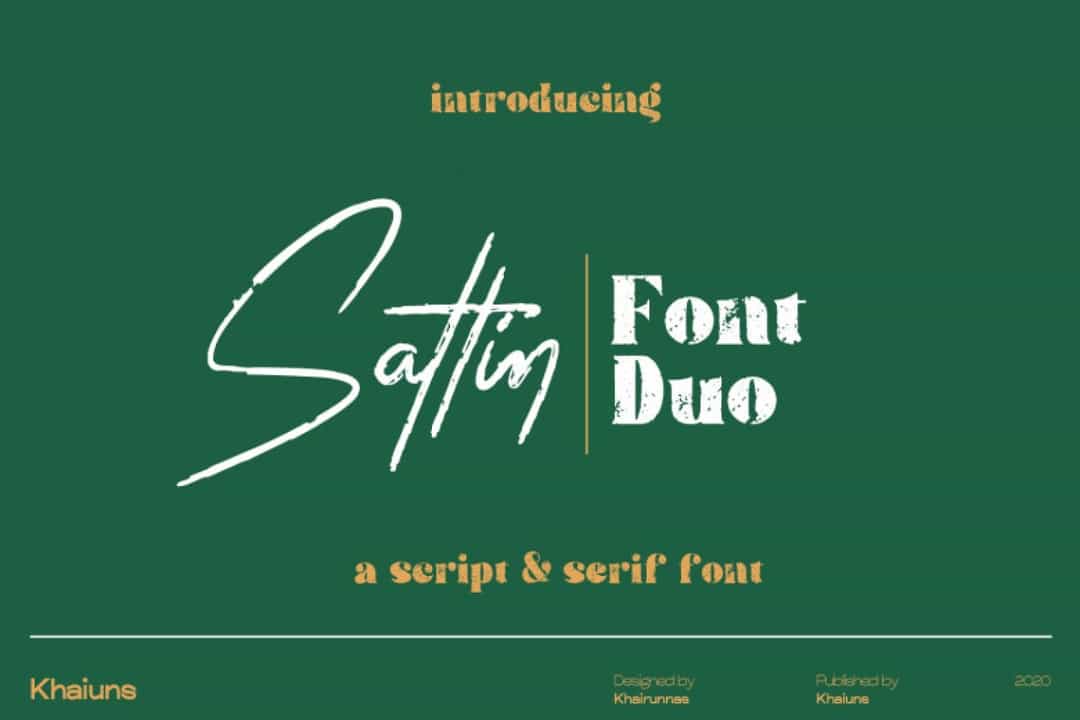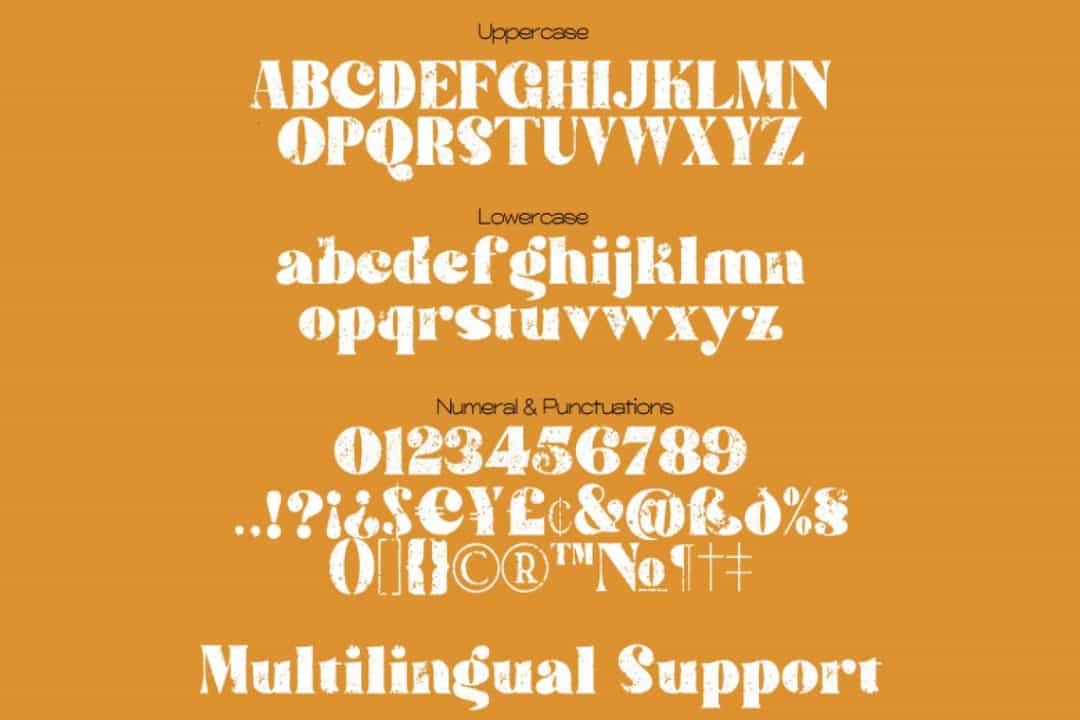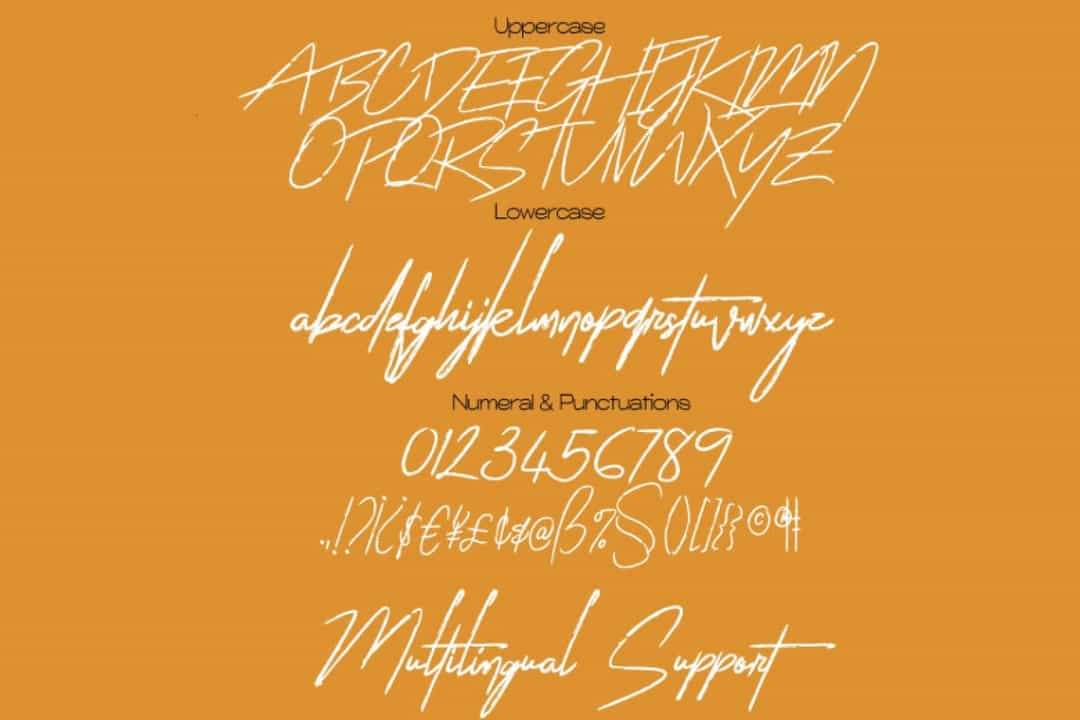
Discover Sattin Font, part of the  Brush  Serif Script Basic Personal collection—a versatile and unique font perfect for adding a personal touch to your projects. Download it for free and enjoy crafting designs with style, from invitations to social media posts. This font is available exclusively for personal use, giving you the freedom to create without limits. Unlock your creativity with Sattin Font today!
Sattin font duo – it includes two types of fonts with a contemporary serif, and Script which is a more elegant font with two textured options. Sattin is an extremely versatile font that is suitable for a wide range of projects from the edgy magazine covers right through to the more delicate work such as wedding invitations and beyond to branding and posters and more.